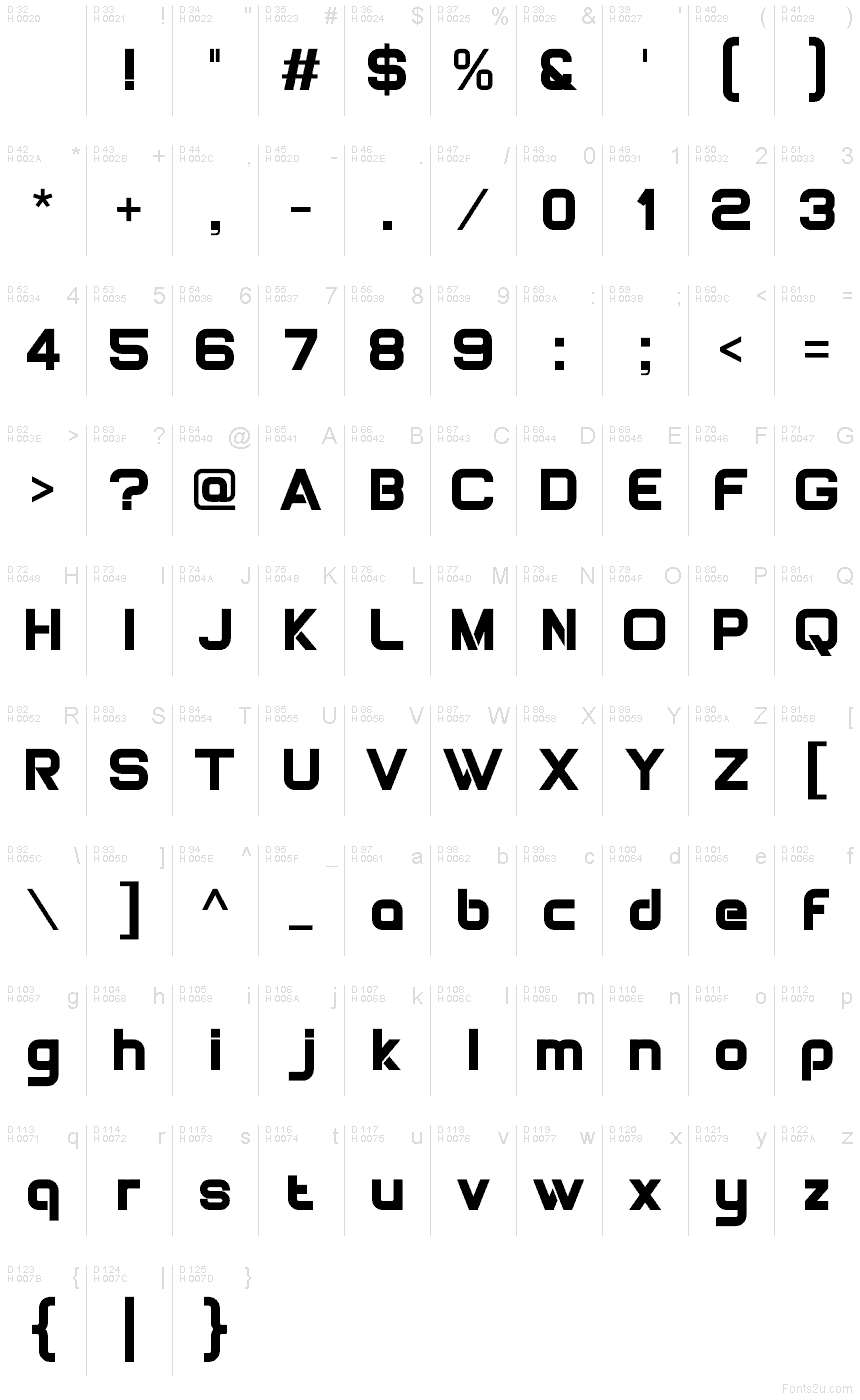
Merinos
Merinos font by ErmediaStudio 2025 is a free modern display font that stands out with squared, squircle-like curves and precision-cut slices that punch light into heavy strokes. Its chunky forms feel engineered yet agile, with crisp terminals and compact rhythm that hold together at huge sizes. The result is a striking, industrial-modern voice that reads cleanly while delivering a confident, tech-forward edge.
Using Merinos, headlines snap, logos lock up neatly, and short phrases carry weight without clutter. This free font shines on esports identities, tech branding, sci‑fi posters, gadget packaging, app splash screens, and automotive graphics. Track it a touch looser for small subheads, and pair with a neutral grotesk or light geometric sans for body copy to let Merinos do the heavy lifting.